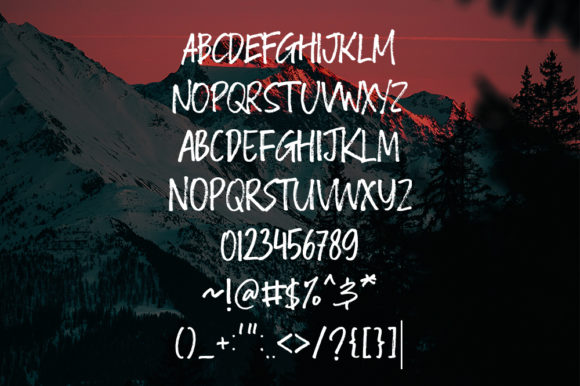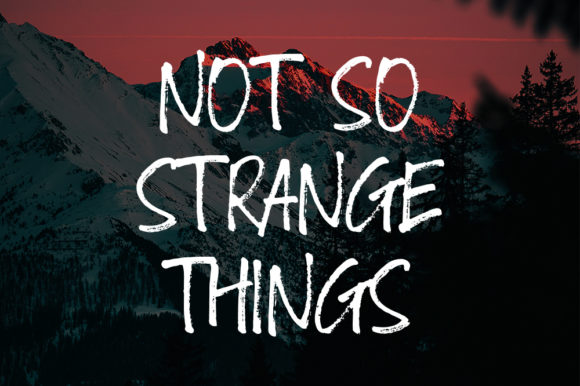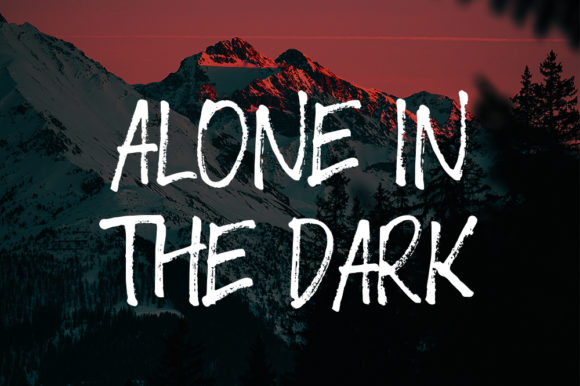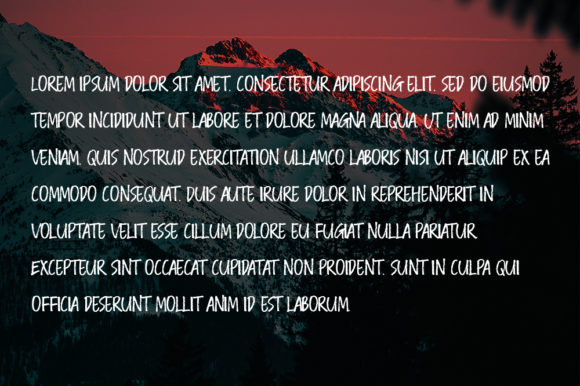
Crackpen Font: Unleash Your Creativity with its Modern, Authentic Look
In the world of typography, fonts play a crucial role in conveying the tone and personality of a brand or design. For designers and crafters, finding the perfect font can be a daunting task. However, if you’re looking for a font that exudes a raw, impulsive feel, look no further than Crackpen Font. In this article, we’ll dive into the world of Crackpen Font, exploring its unique features, and how it can inspire your next design project.
What is Crackpen Font?
Crackpen Font is a script font that boasts a modern, authentic look. Its raw, impulsive feel makes it perfect for designers and crafters who want to add a touch of personality to their work. The font’s unique design is characterized by its rough, hand-drawn texture, giving it a distinctive, one-of-a-kind feel.
Key Features of Crackpen Font
• Impulsive Script: Crackpen Font features an impulsive script with a raw, hand-drawn feel. Its unique design makes it perfect for adding a touch of personality to your designs.
• Modern and Authentic: The font’s modern, authentic look makes it perfect for a wide range of design projects, from branding and advertising to crafting and DIY projects.
• High-Quality Design: Crackpen Font is designed with high-quality craftsmanship in mind. Its intricate details and precise lines make it perfect for use in a variety of design applications.
How to Use Crackpen Font in Your Designs
Crackpen Font is a versatile font that can be used in a wide range of design projects. Here are some ideas to get you started:
• Branding and Advertising: Use Crackpen Font to add a touch of personality to your brand’s logo or advertising materials.
• Crafting and DIY Projects: Crackpen Font is perfect for crafters and DIY enthusiasts who want to add a personal touch to their projects.
• Social Media Graphics: Use Crackpen Font to create eye-catching social media graphics that stand out from the crowd.
Tips for Pairing Crackpen Font with Other Fonts
Pairing fonts can be a daunting task, but with Crackpen Font, the possibilities are endless. Here are some tips for pairing Crackpen Font with other fonts:
• Contrast with Sans-Serif Fonts: Pair Crackpen Font with sans-serif fonts, such as Arial or Helvetica, to create a striking contrast.
• Match with Script Fonts: Pair Crackpen Font with other script fonts to create a cohesive, elegant look.
• Experiment with Font Sizes: Experiment with different font sizes to create visual interest and hierarchy in your designs.
Crackpen Font is a unique and versatile font that can add a touch of personality to any design project. Its modern, authentic look and raw, impulsive feel make it perfect for designers and crafters who want to stand out from the crowd. With its high-quality design and wide range of uses, Crackpen Font is a must-have for any designer or crafter looking to unleash their creativity.
Get Inspired by Crackpen Font